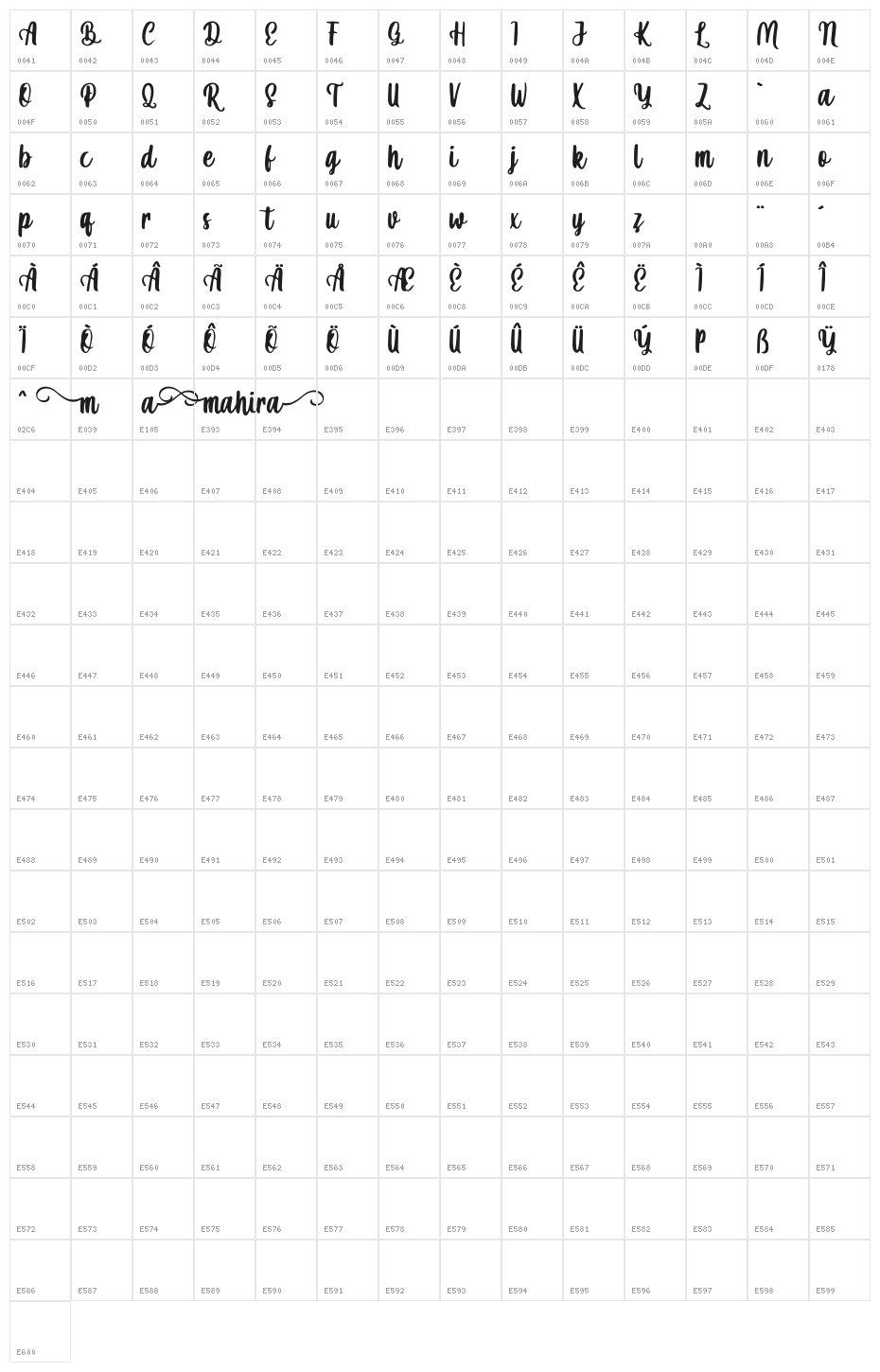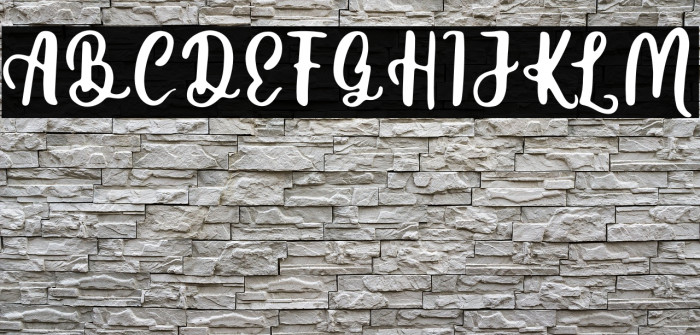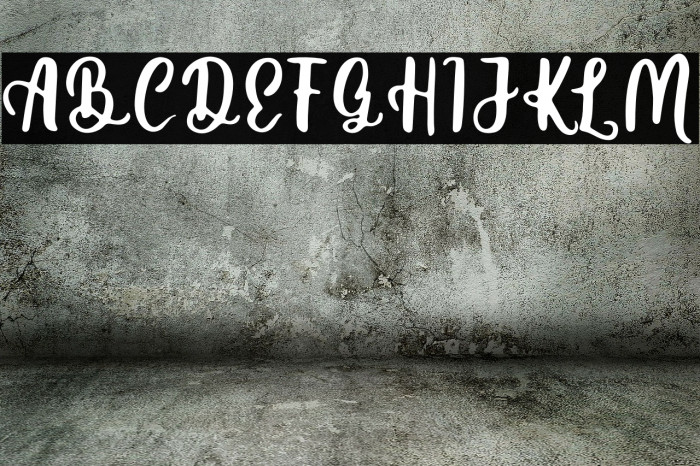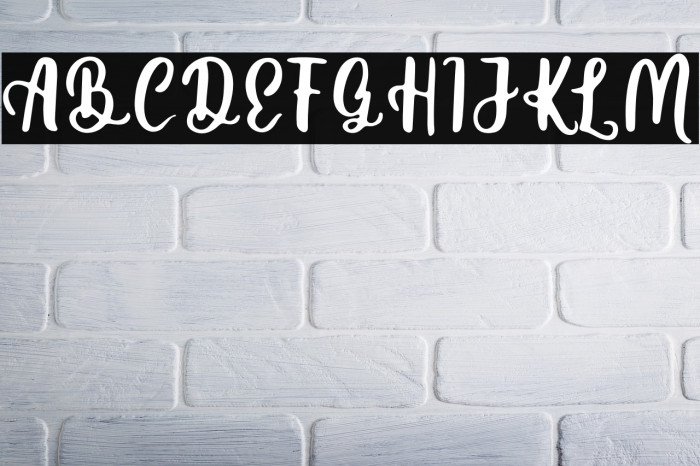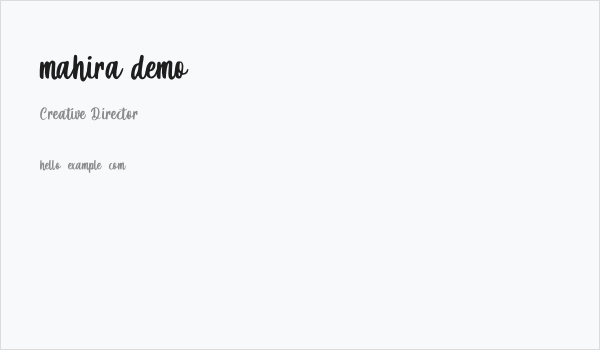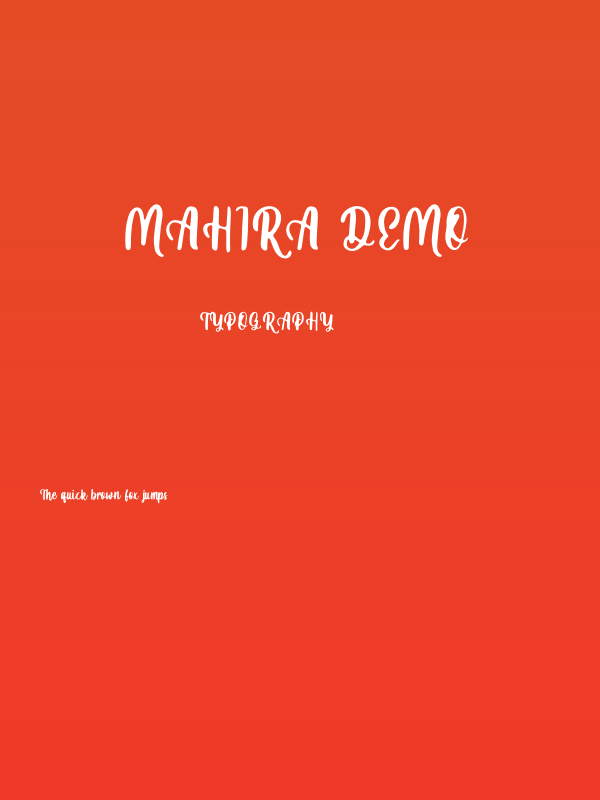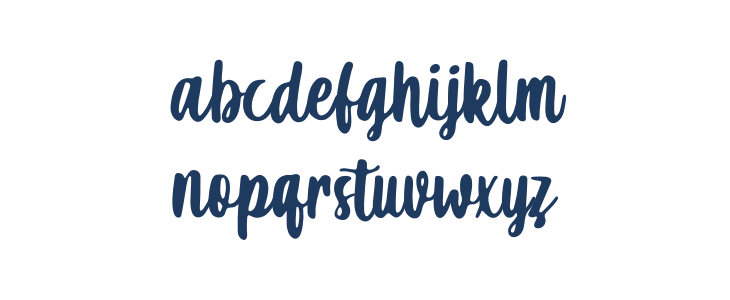
mahira demo Font
mahira demo Description
This font features a bold and expressive script style with a playful and dynamic character. The letters are interconnected with smooth, flowing curves, giving it a sense of movement and energy. The uppercase letters are slightly more ornate, with swashes and loops that add a decorative touch. The lowercase letters maintain a consistent rhythm, enhancing readability while preserving the font's artistic flair. The overall design is modern yet retains a hint of vintage charm, making it versatile for various creative applications.
| Proposed Projects | Ideal for branding, invitations, greeting cards, and social media graphics where a lively and artistic touch is desired. |